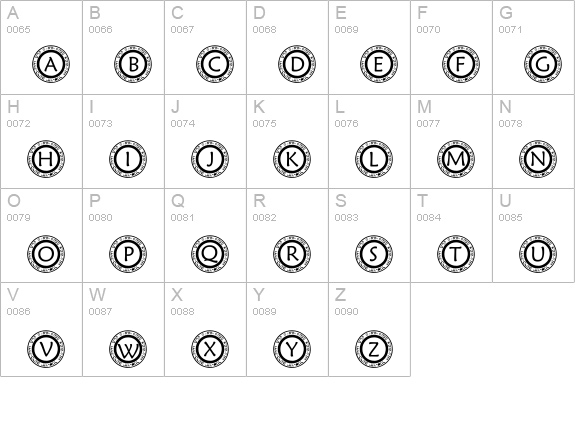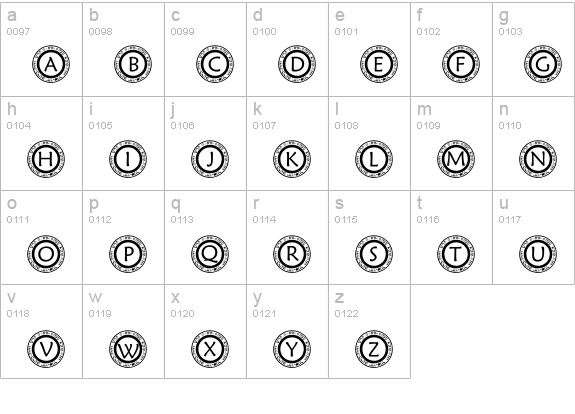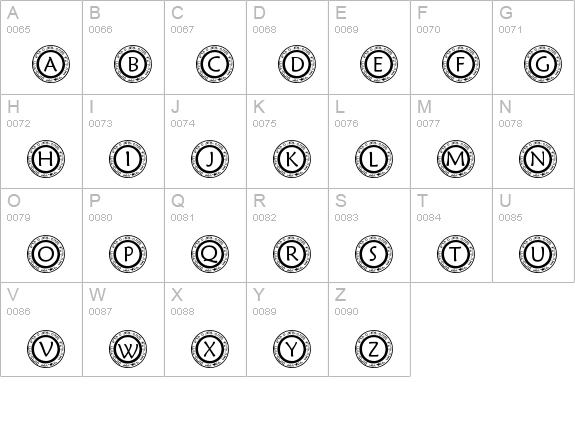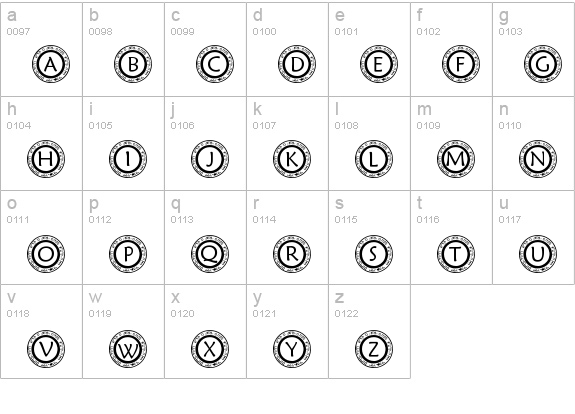
pf_scircle1 Font Details
pf_scircle1 is a modern and stylish font that is a perfect choice for those who are looking to add a touch of creativity and uniqueness to their designs. With its circular shapes and smooth lines, this font exudes a sense of elegance and sophistication. What sets pf_scircle1 apart is not only its stunning design, but also the fact that it is available for free. Yes, you read that right - this incredible font can be downloaded at no cost from FontsMarket.com. Whether you are designing a logo, creating a poster, or working on a branding project, pf_scircle1 will definitely make your work stand out. Its bold and eye-catching appearance will instantly grab attention and leave a lasting impression. The versatility of pf_scircle1 is another reason why it is highly recommended. It can be used in a wide range of design projects, from social media graphics to website headers. Its clean and legible characters ensure that your message is conveyed clearly and effectively. Downloading pf_scircle1 is a breeze. Simply visit FontsMarket.com and you will find this font ready to be downloaded and used in your design projects. So why wait? Enhance your designs with pf_scircle1 and make a bold statement today.